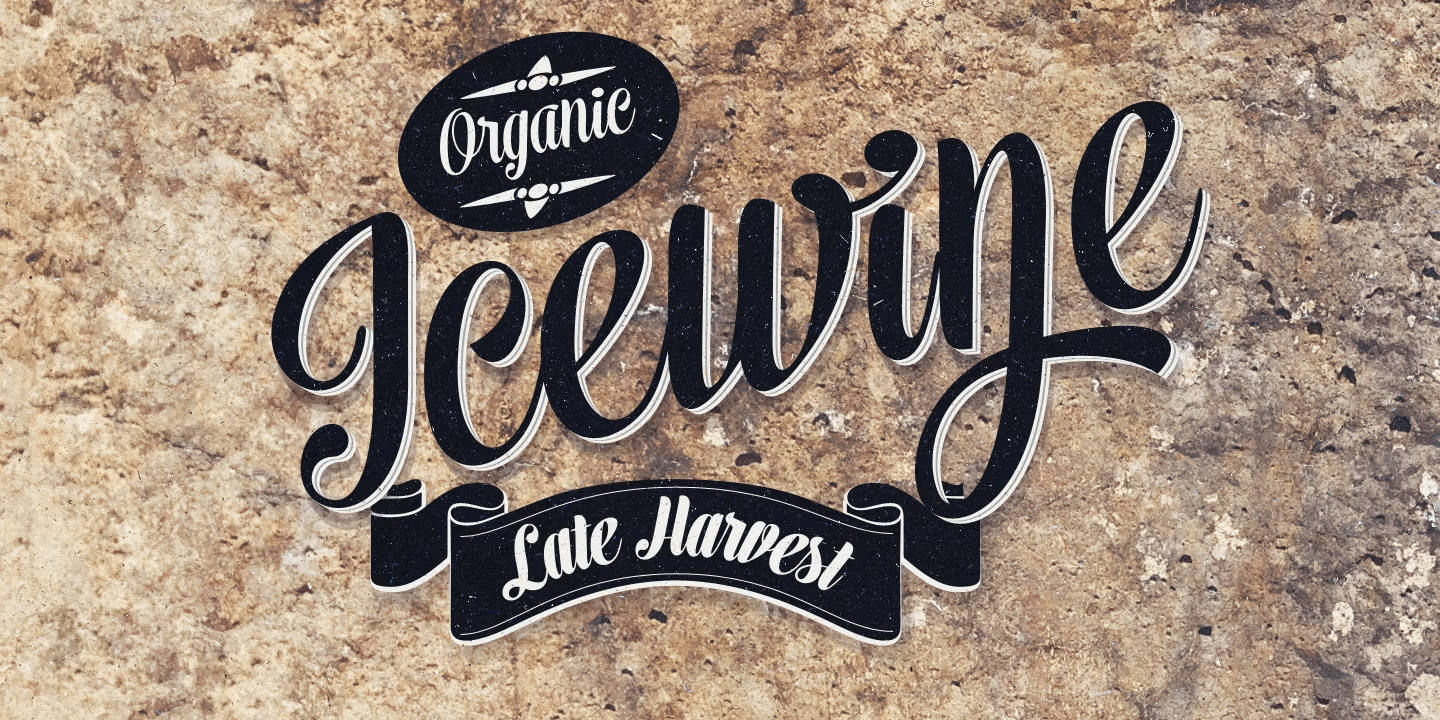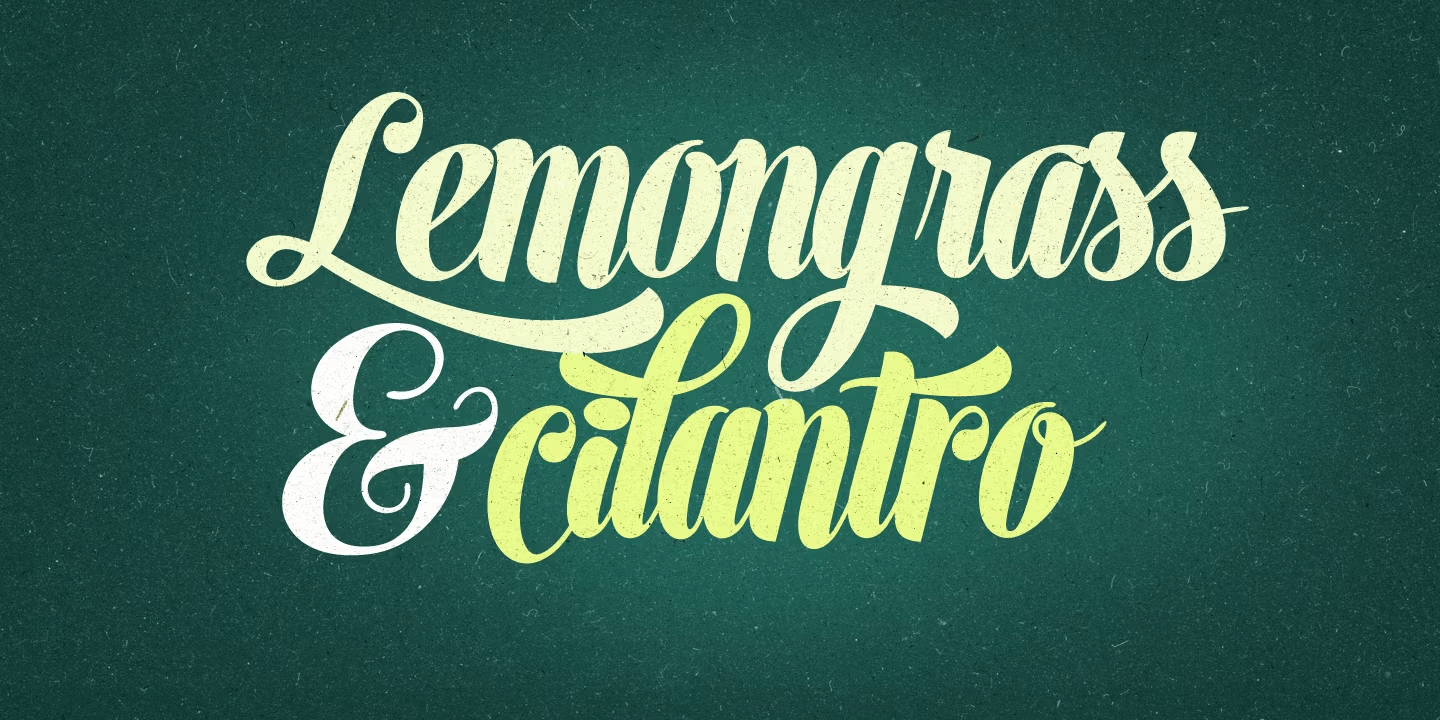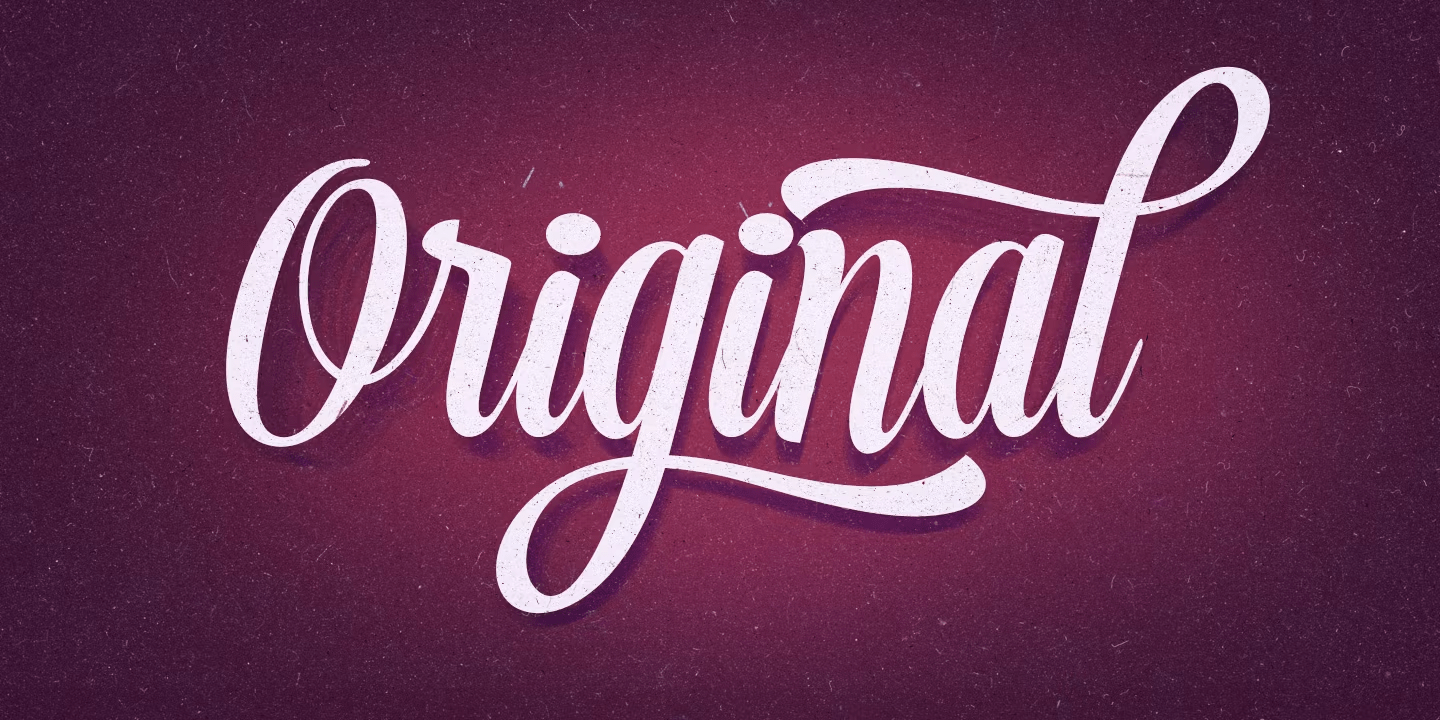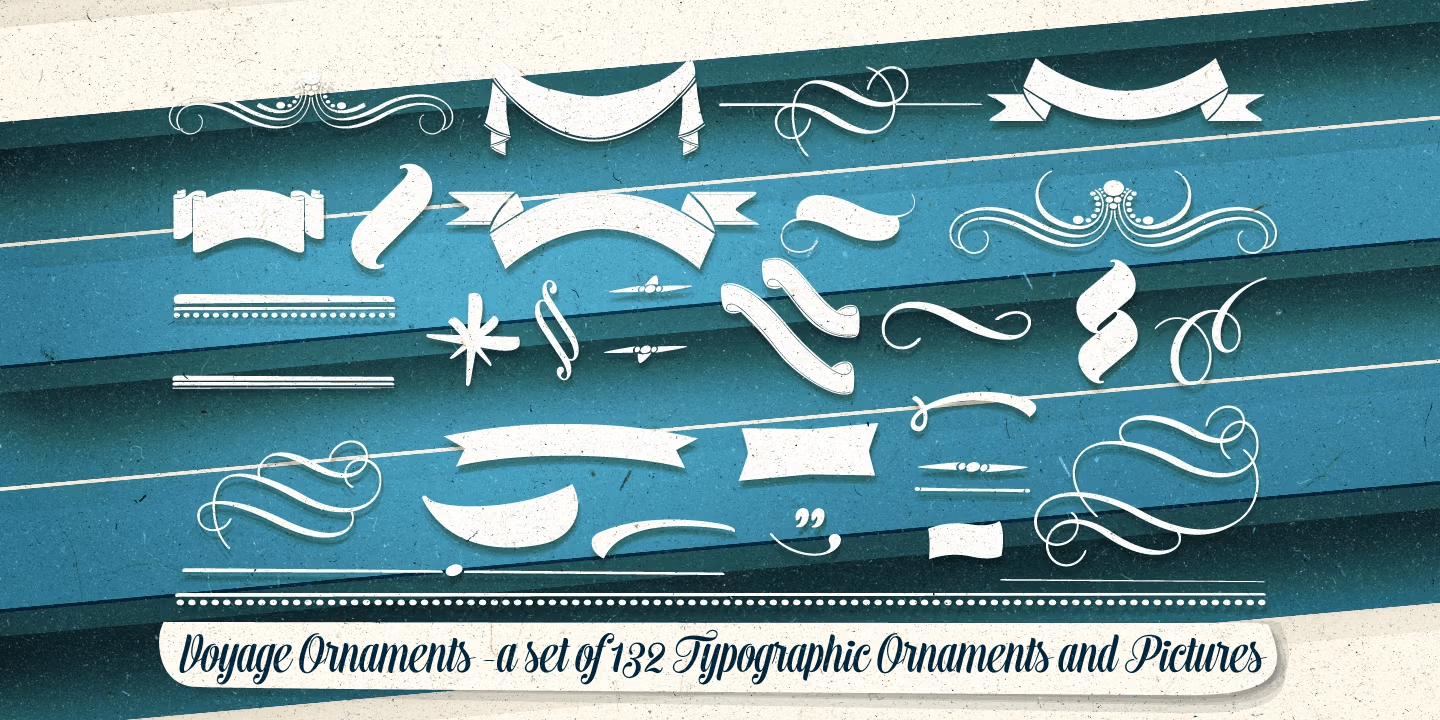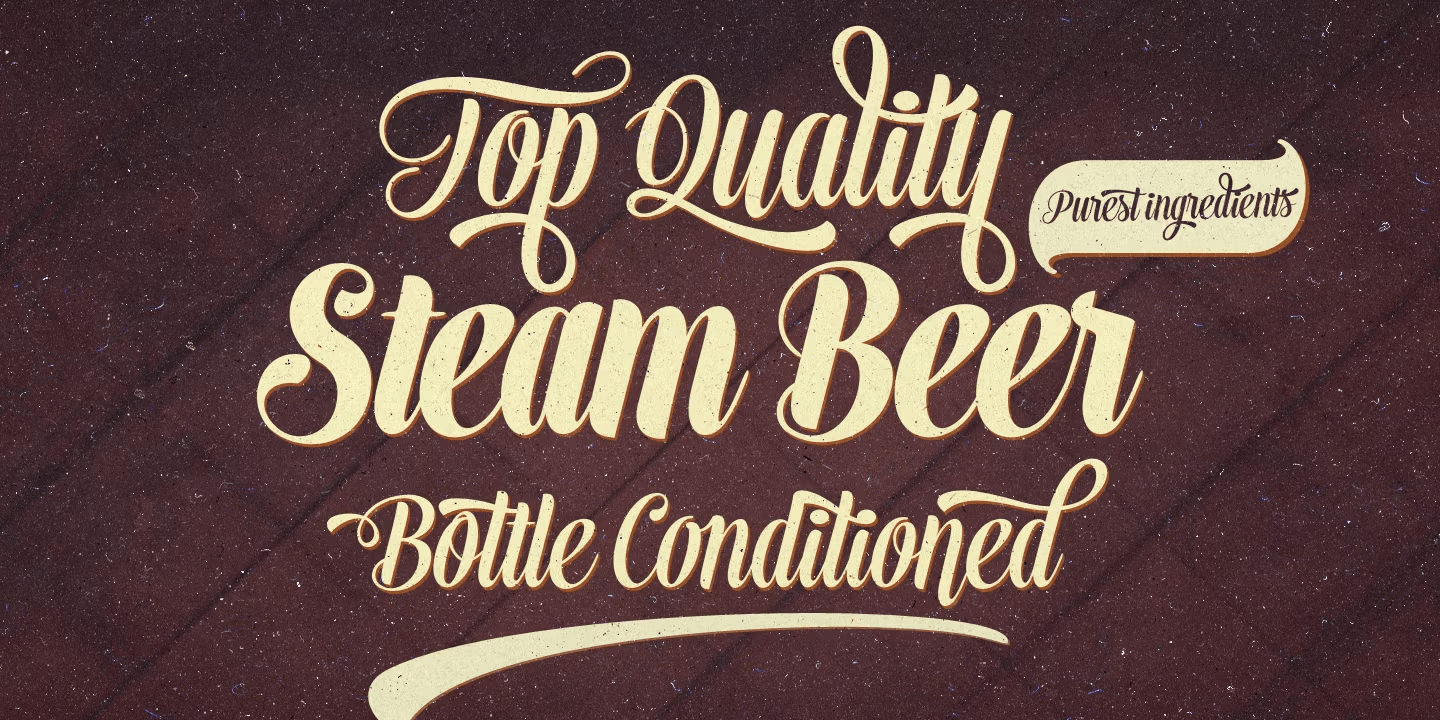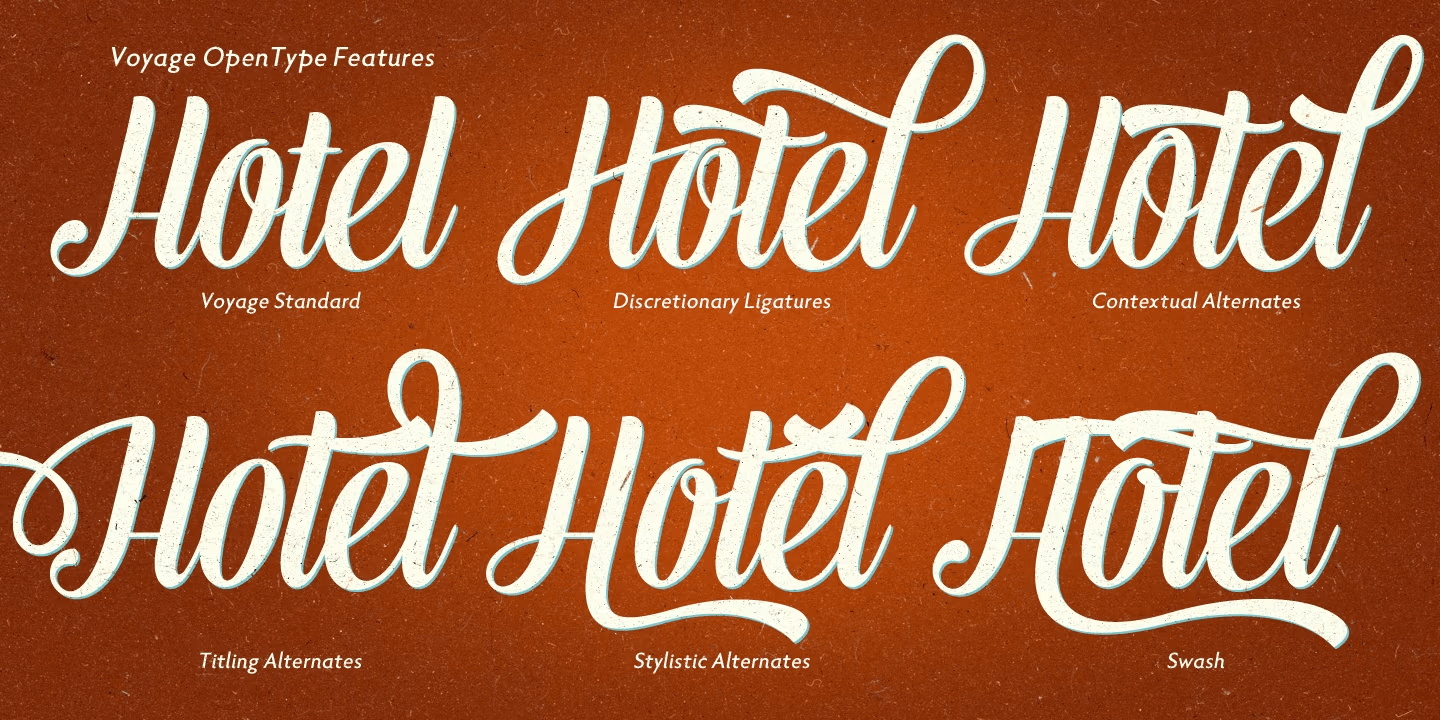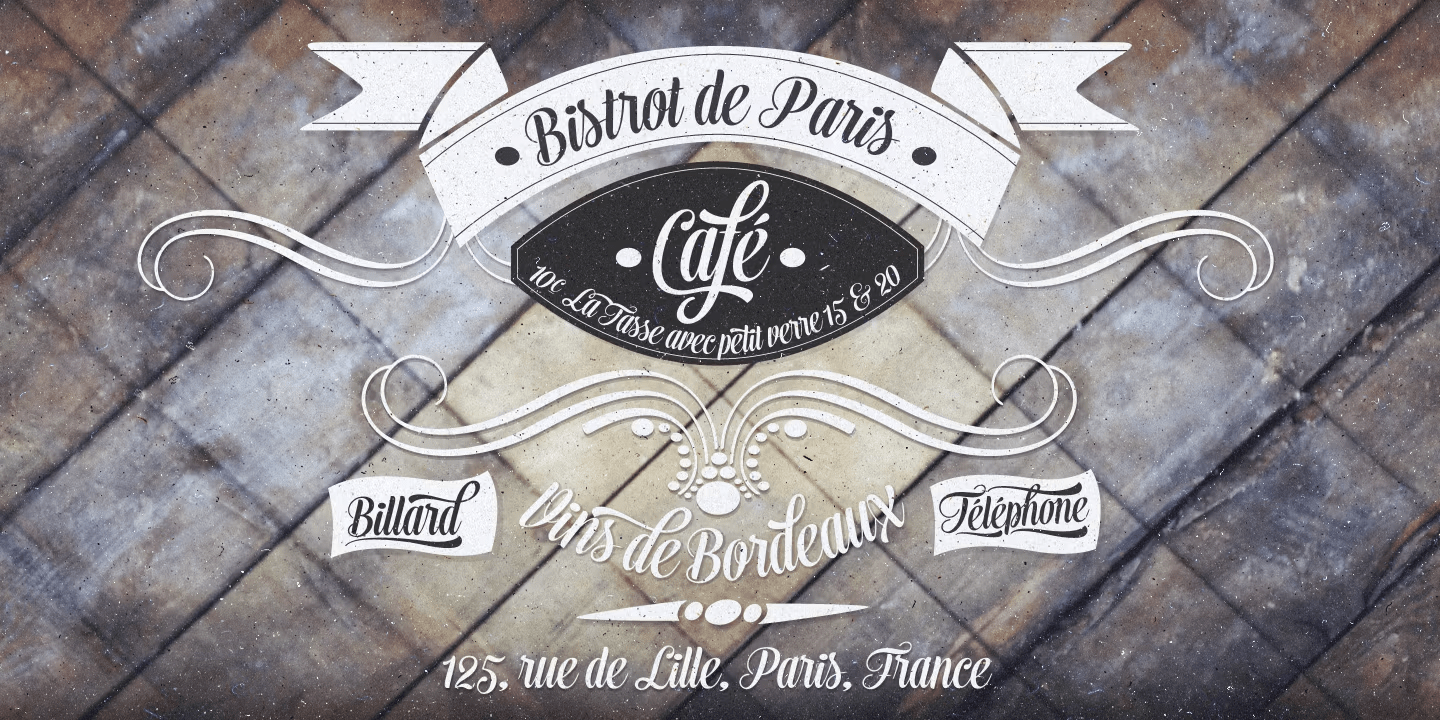
Voyage
Voyage is a smooth and friendly vintage script family of two weights and ornament sets. Voyage is packed with alternate characters and OpenType features to allow you create customized headlines. To activate the alternates click on Swash, Contextual, Stylistic or Titling Alternates or Discretionary Ligatures in any OpenType savvy program or manually select the characters from Glyph Palette. Always keep on Standard Ligatures for the best outcome. Combine Voyage with Voyage Ornaments to complete your designs.